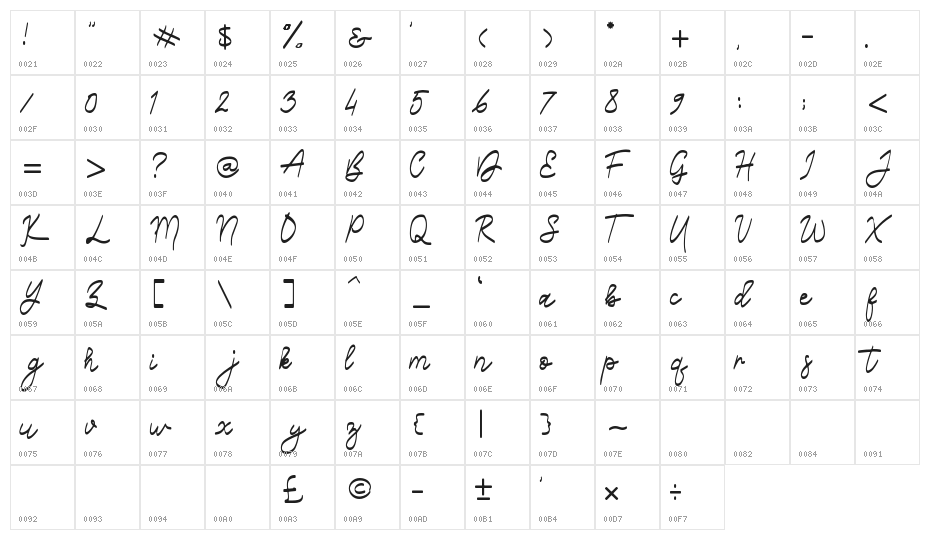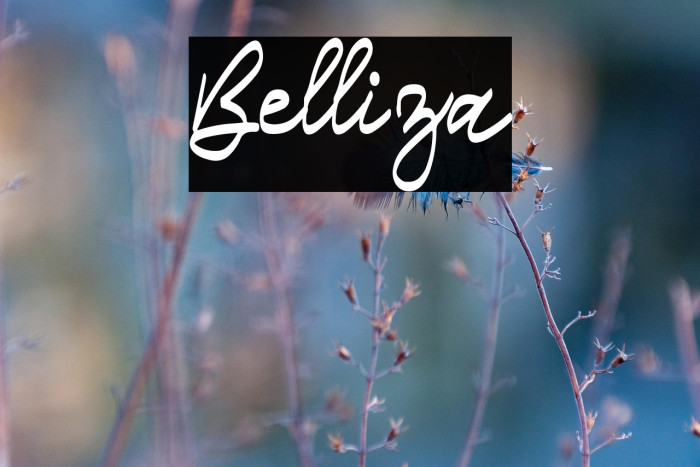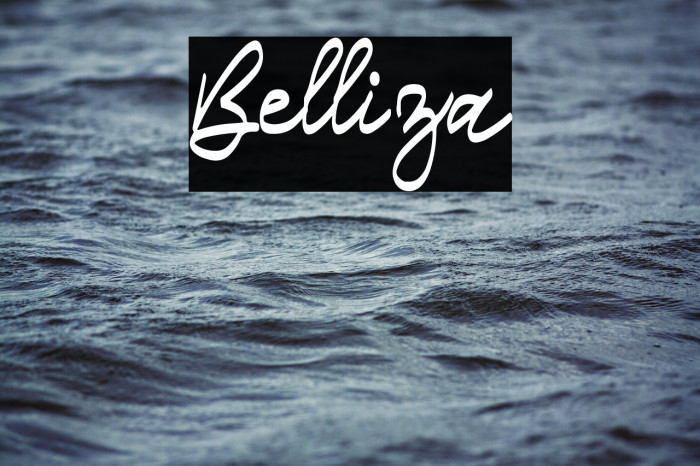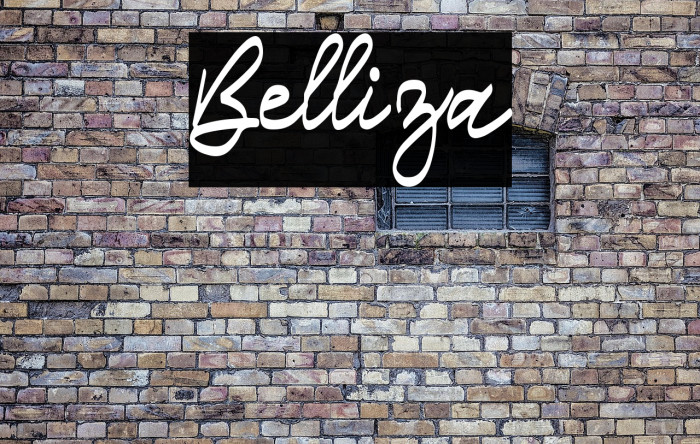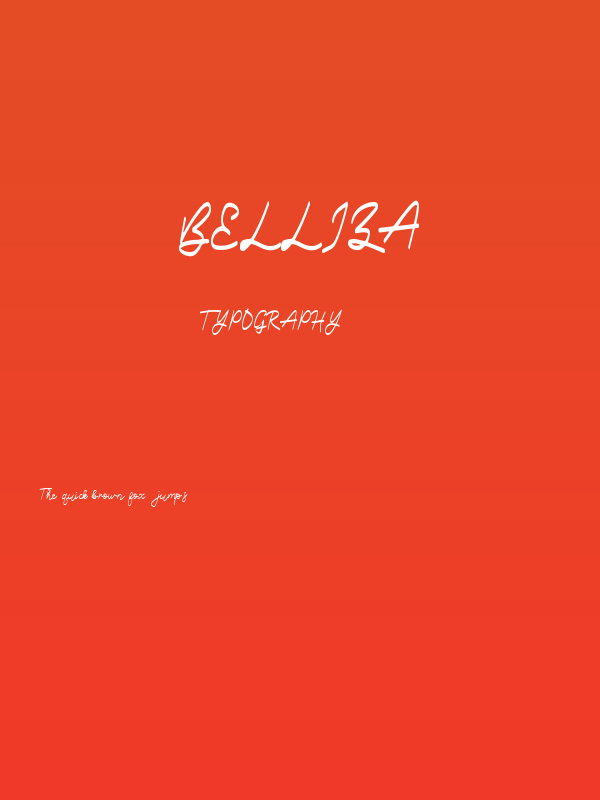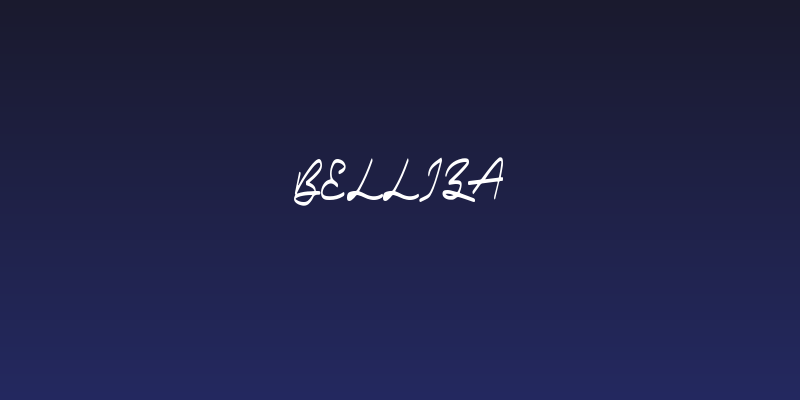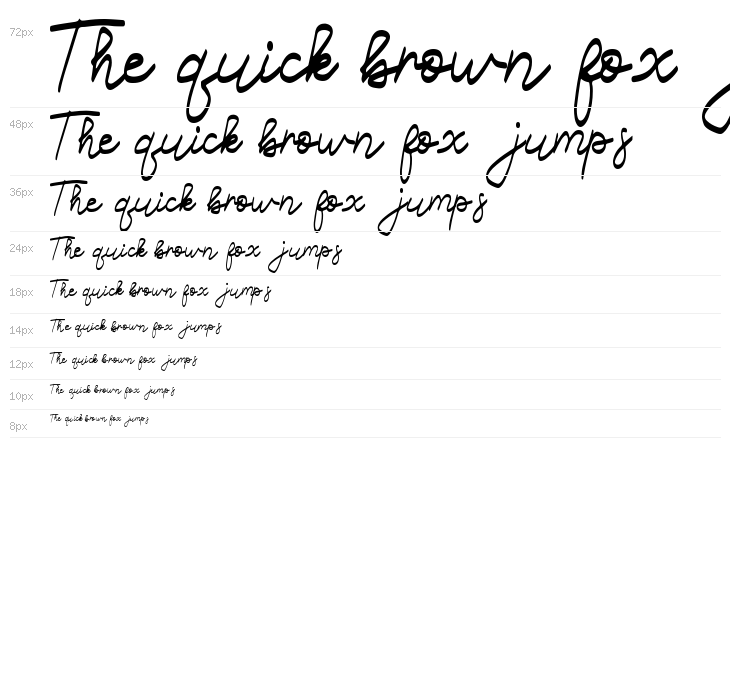
Belliza Font
Belliza Description
This font exhibits a flowing, cursive style that mimics natural handwriting. The letters are connected, creating a seamless and elegant appearance. The uppercase letters are slightly larger and more pronounced, while the lowercase letters maintain a consistent flow. The numbers and special characters are crafted to match the overall cursive theme, adding a touch of sophistication. The strokes are smooth and fluid, with a slight slant to the right, enhancing the handwritten feel. This font is ideal for projects that require a personal, elegant touch, such as invitations, greeting cards, or artistic designs.
| Overall Style | Elegant, Handwritten |
| Use Case | Logos, Invitations, Artistic designs |
| Proposed Projects | Ideal for invitations, greeting cards, personal notes, and artistic designs. |